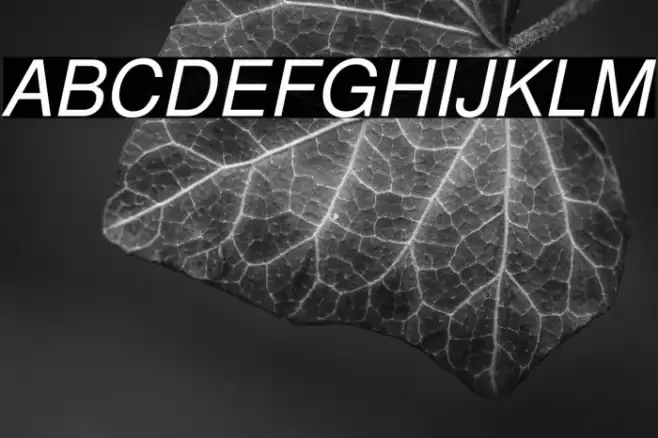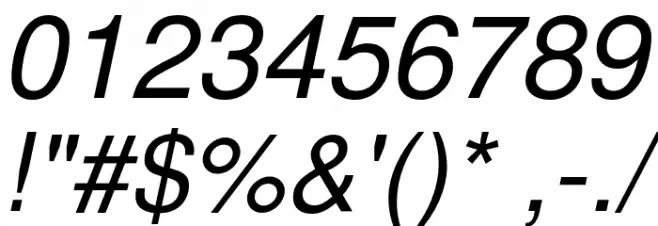
TeXGyreHeros-Italic Font
TeXGyreHeros-Italic Description
This font features a clean and modern sans-serif design with a subtle italic slant, giving it a dynamic and elegant appearance. The characters are well-proportioned, with smooth curves and straight lines that create a harmonious balance. The uppercase letters are bold and assertive, while the lowercase letters maintain a friendly and approachable feel. The numerals are clear and easy to read, making them suitable for various applications. Special characters are distinct and well-integrated into the overall design. The font's versatility makes it ideal for both digital and print media, offering a professional yet stylish look.
A modern sans-serif italic font with clean lines and a dynamic style from Sans Serif fonts.
- Proposed Projects: Ideal for branding, advertising, web design, and editorial layouts.